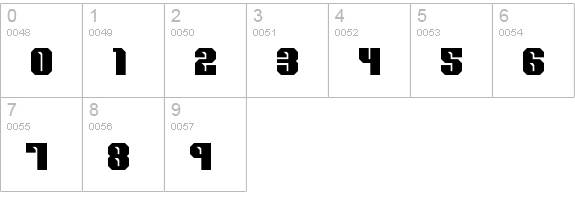
Revert BRK Font Details
Revert BRK font is a unique and versatile typeface that combines modern aesthetics with a touch of retro charm. With its bold, eye-catching letterforms and clean lines, this font is perfect for a wide range of design projects, from branding to posters to social media graphics. The distinctive style of Revert BRK font will make your text stand out and leave a lasting impression on your audience. Best of all, Revert BRK font is completely free to download at FontsMarket.com. This means you can add this stylish font to your collection without any cost, making it a fantastic choice for designers looking to enhance their creative projects without breaking the bank. Don't miss out on the opportunity to elevate your designs with the timeless appeal of Revert BRK font - download it today and start creating stunning visuals that are sure to impress.